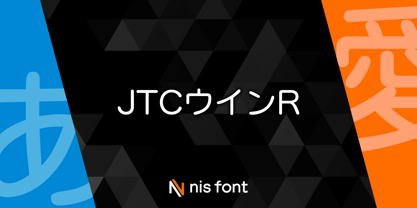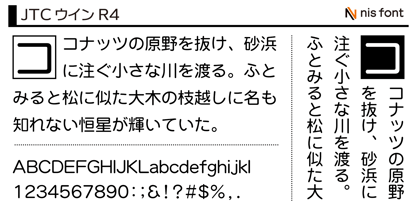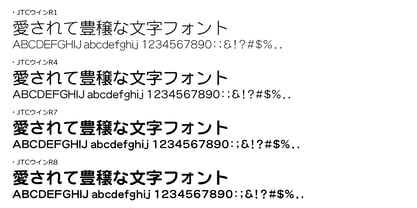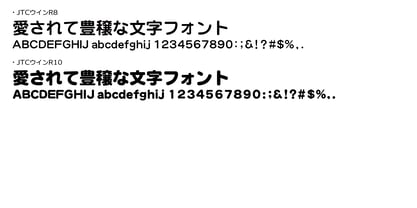
OT-NIS_R
by NIS Fonts
The OT-NIS_R Font Family was designed by and published by NIS Fonts. OT-NIS_R contains 5 styles and family package options. More about this family
The "OT-NIS_R Series" is Nisfont's foundational rounded Gothic typeface. This product is part of a family font series that offers five weight variations, ranging from R1 to R10. The thinner weights have a clean and crisp feel, while the heavier weights exude a sense of elegance, sophistication, and stability. The kana characters are designed with a rounded fullness, as prominently seen in characters like "り," giving them a rich and generous appearance. Supports the JIS2004 character set.